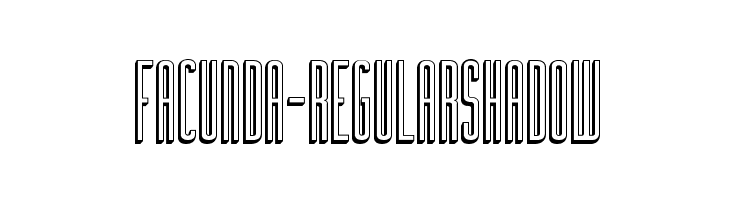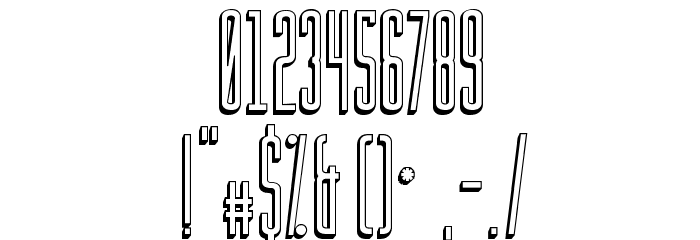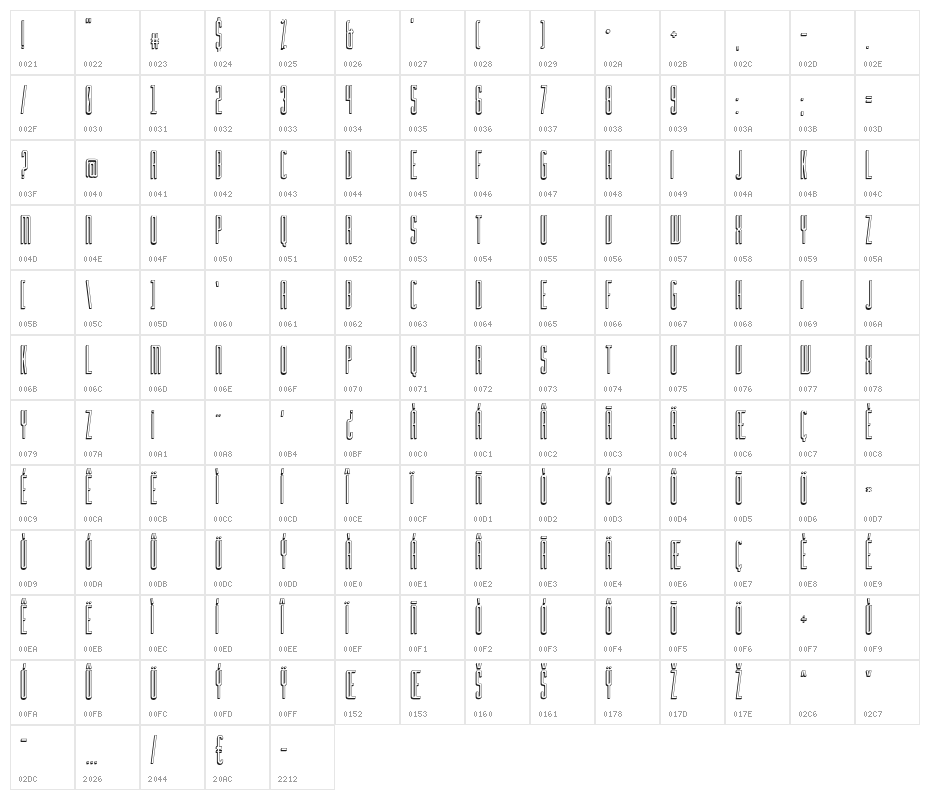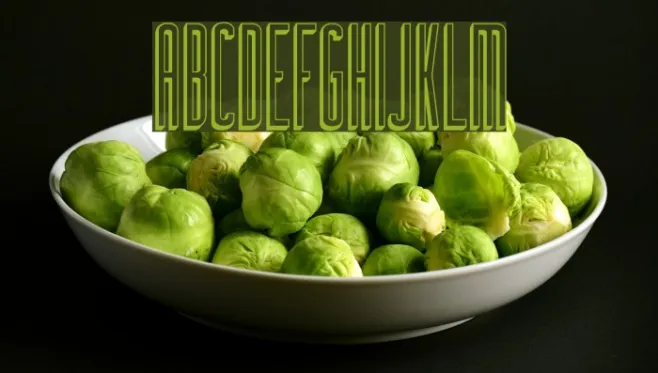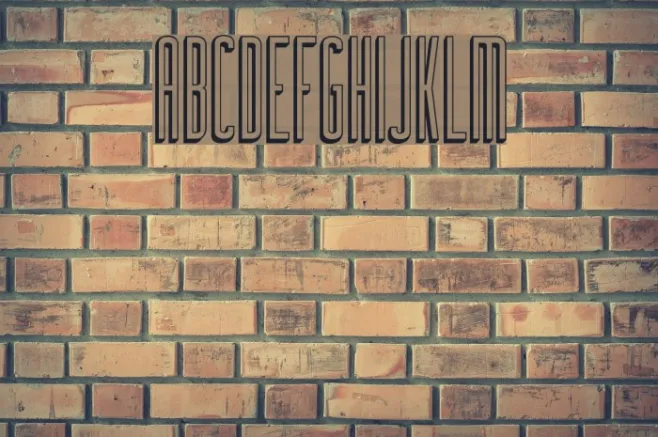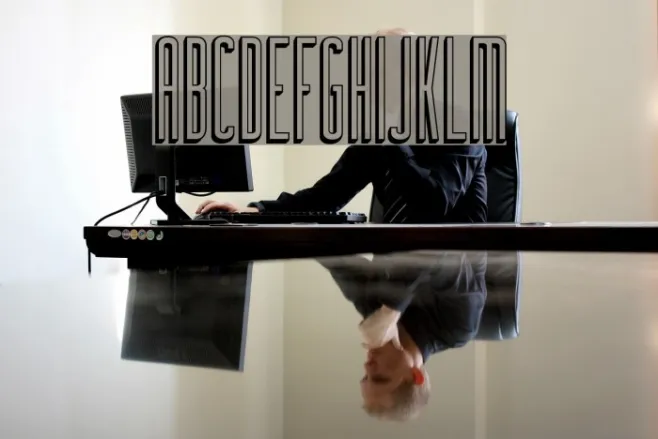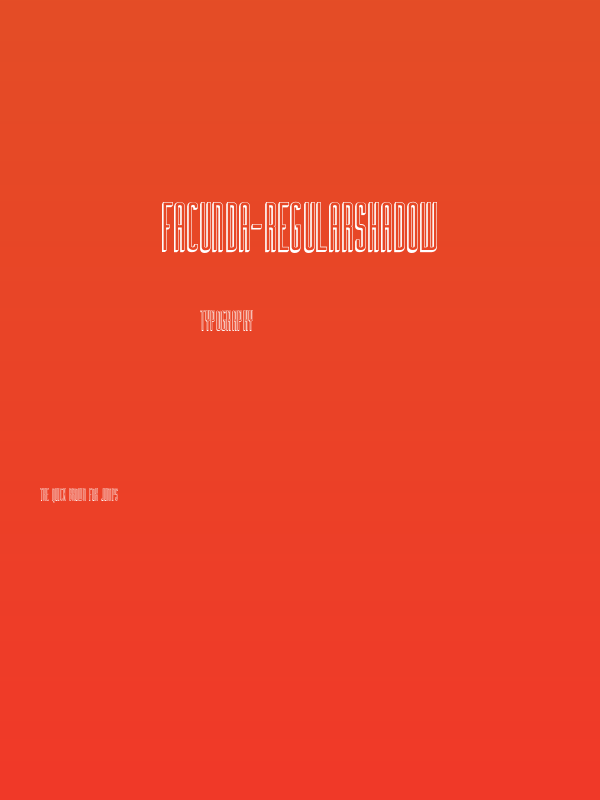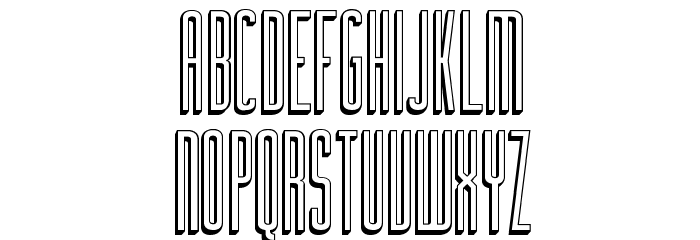
Facunda-RegularShadow Font
Facunda-RegularShadow Description
This font features a bold, shadowed design that emphasizes each character with a distinct outline, creating a striking and dimensional appearance. The uppercase letters are tall and narrow, giving a sense of elegance and modernity. The lowercase letters maintain the same narrow structure, ensuring consistency across the typeface. Numbers and special characters are designed to match the overall style, with clear, defined lines and a shadow effect that enhances readability. The font's unique shadowing adds depth, making it ideal for eye-catching designs.